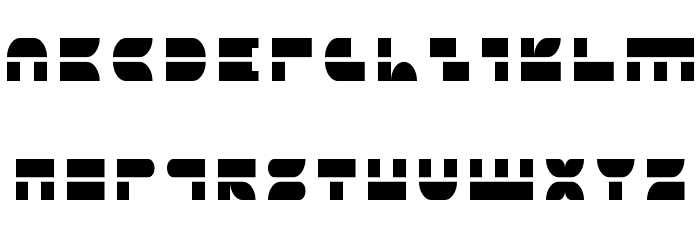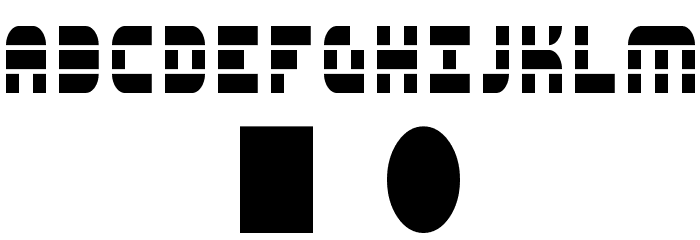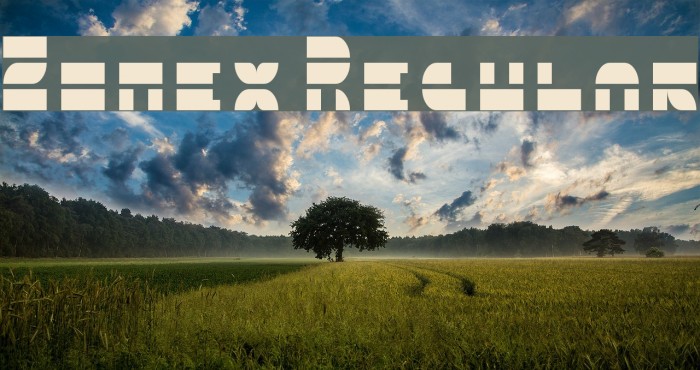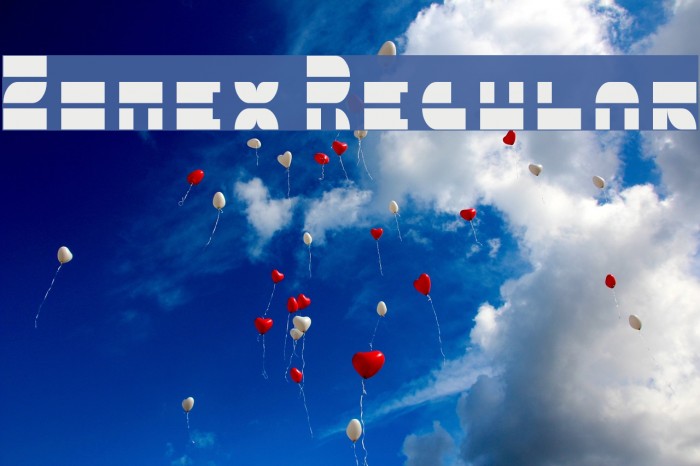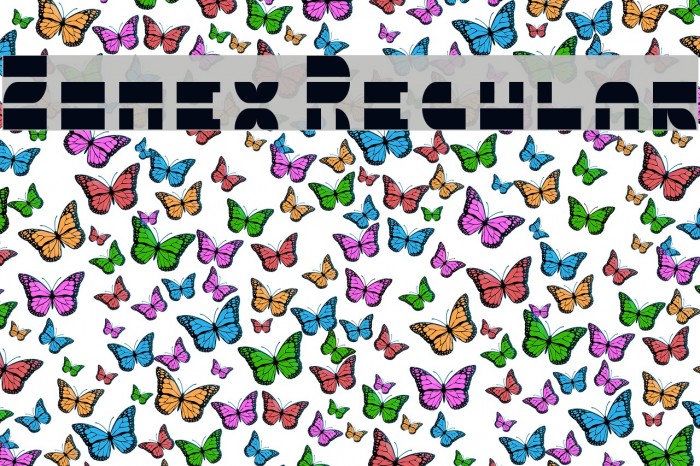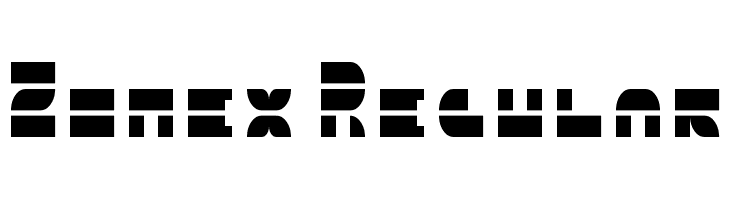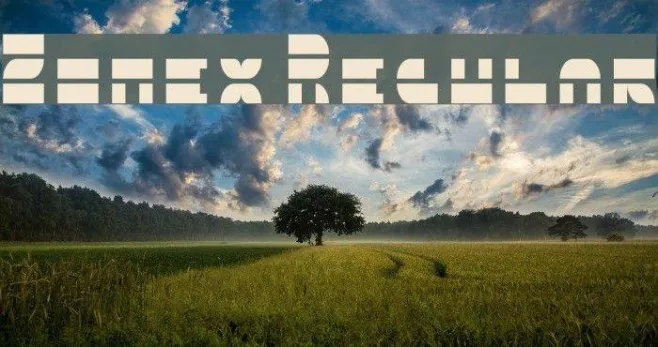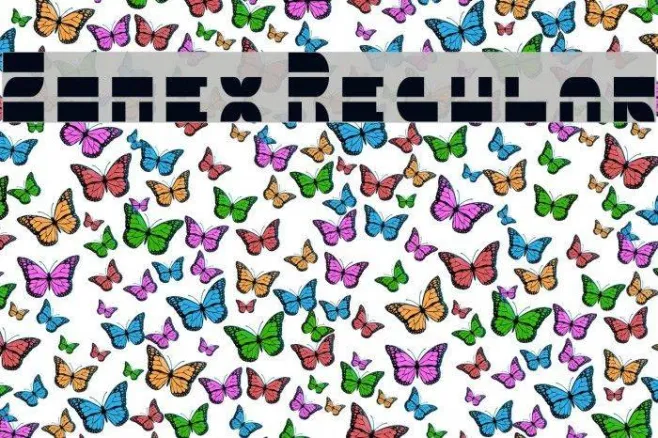
5Zonex Regular Font
This font features a bold, geometric design with a futuristic and digital aesthetic. Each character is constructed using solid, block-like shapes that create a sense of structure and modernity. The uppercase and lowercase letters maintain a consistent style, emphasizing uniformity and balance. The numbers and special characters follow the same design principles, ensuring a cohesive look across all elements. The font's unique style makes it stand out, with its sharp angles and clean lines contributing to a striking visual impact. This design is ideal for projects that require a contemporary and edgy feel.
A bold, geometric font with a futuristic and digital aesthetic.
- Proposed Projects: Ideal for tech branding, digital art, video game interfaces, and modern posters.